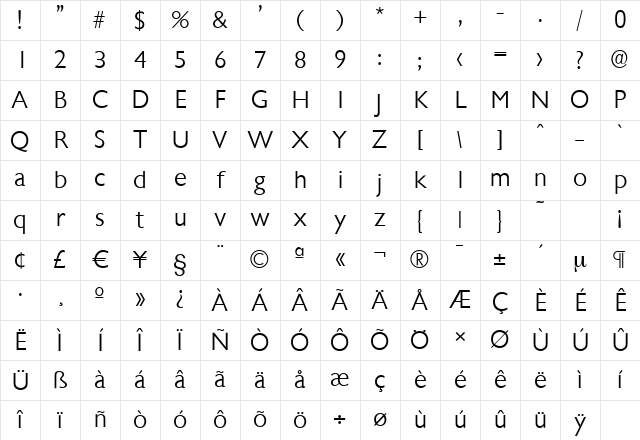
ChantillySerial-Light Regular
ChantillySerial-Light Family
Design Context for ChantillySerial-Light
ChantillySerial-Light is a composed and adaptable typeface that performs quietly and consistently across a wide range of design contexts. Its slender proportions lend an understated elegance to any composition.